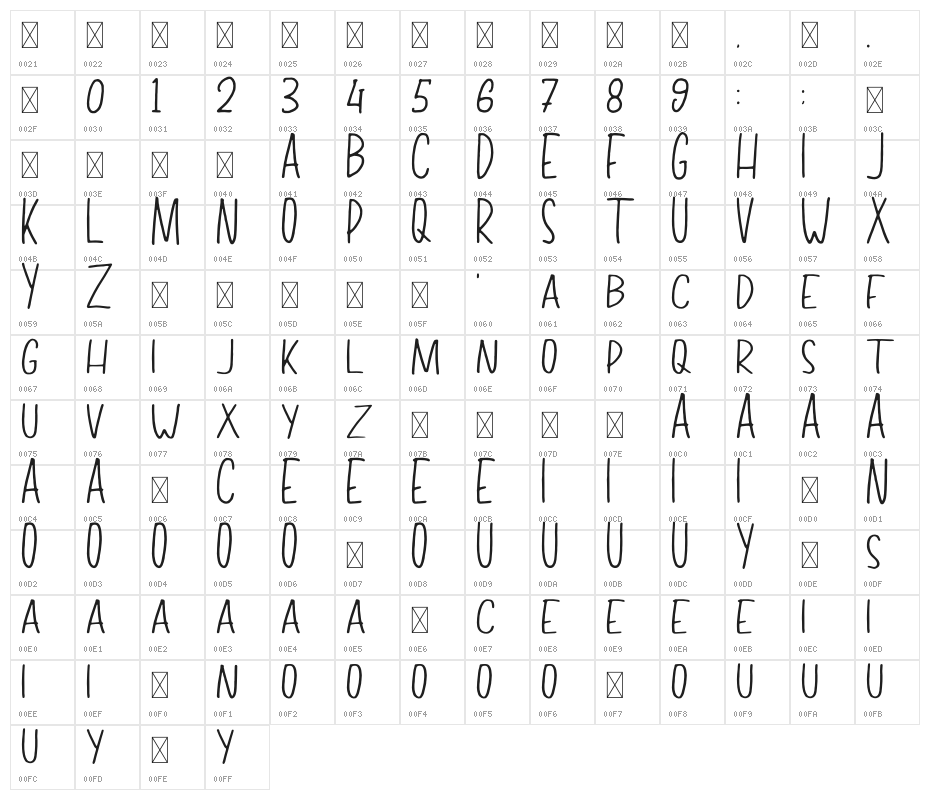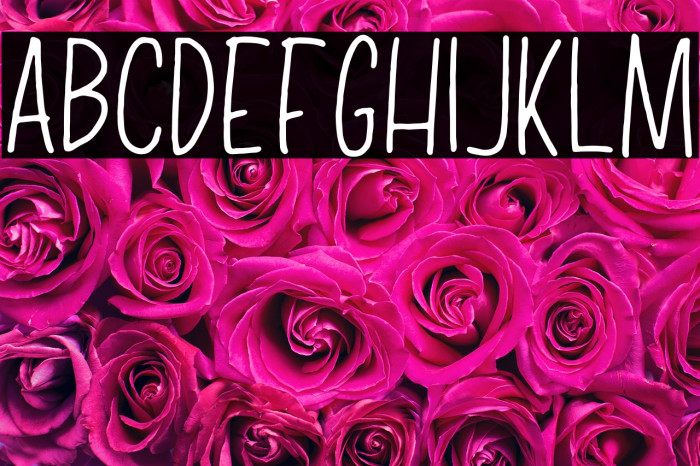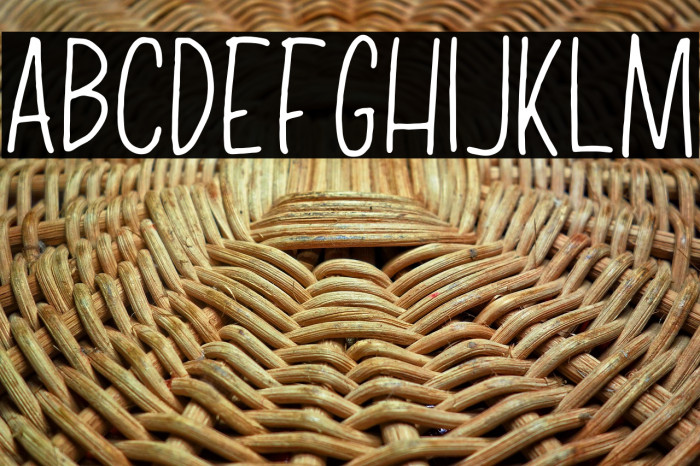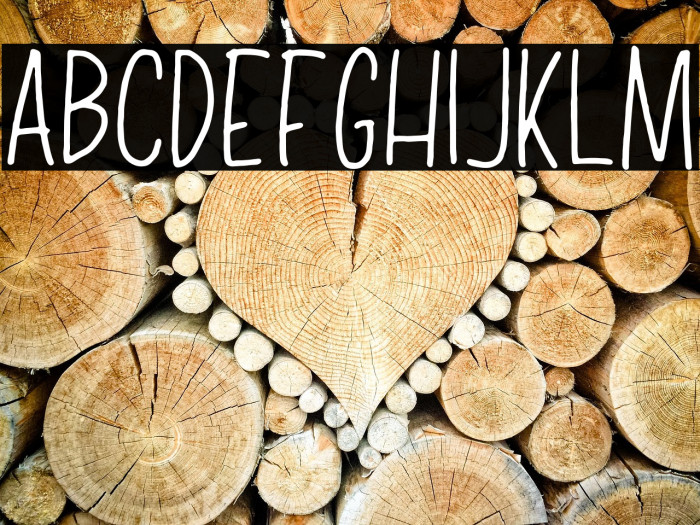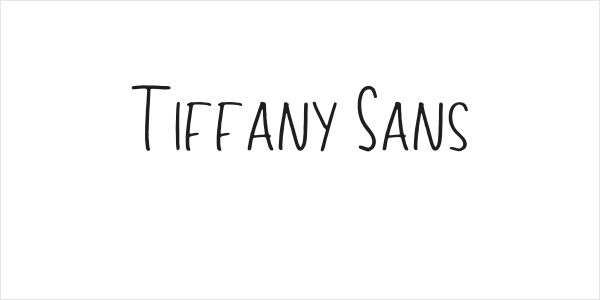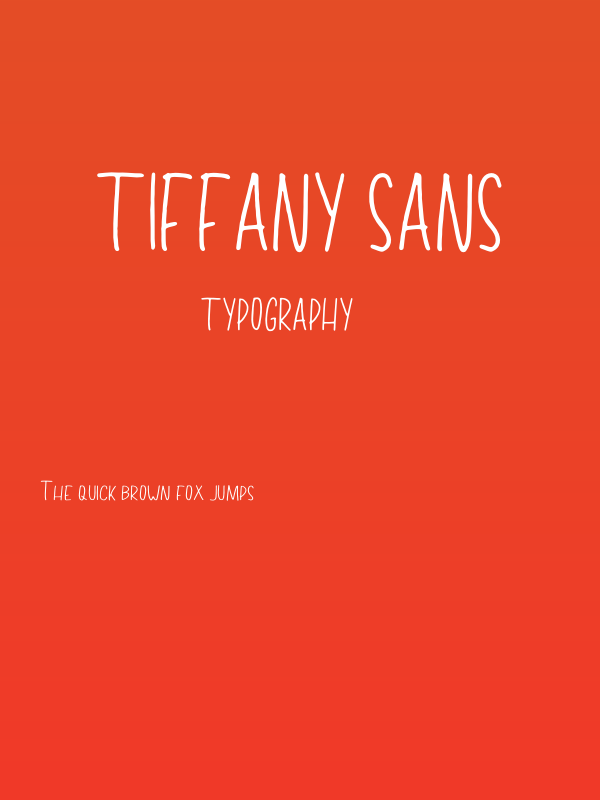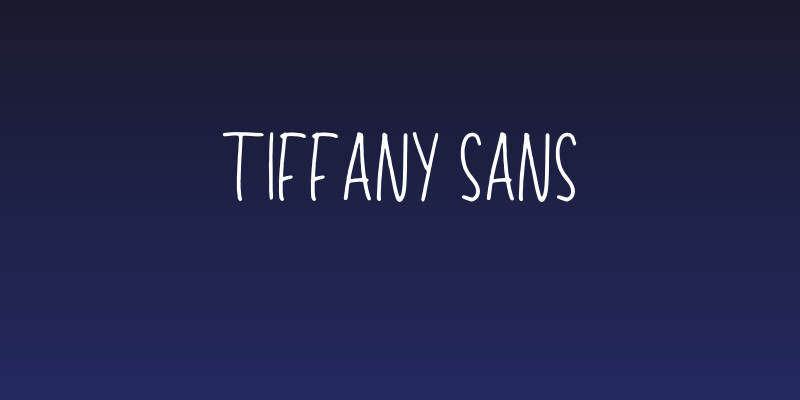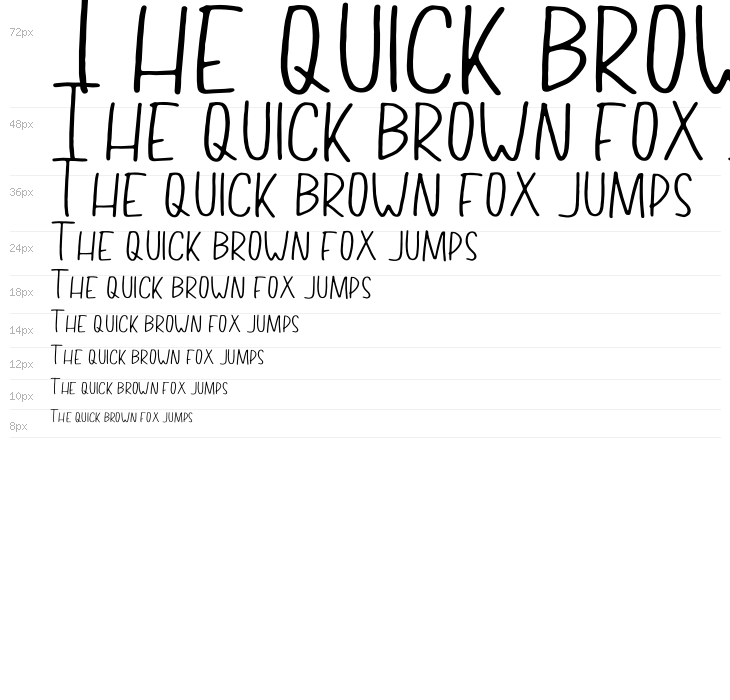
Tiffany Sans Font
Tiffany Sans Description
This font features a playful and casual handwritten style, characterized by its tall and narrow letterforms. The strokes are slightly uneven, giving it a natural and organic feel. The uppercase and lowercase letters maintain a consistent height, enhancing readability while preserving a whimsical charm. The numerals are distinct and easy to distinguish, complementing the overall style. The font's informal nature makes it suitable for projects that require a personal touch or a relaxed atmosphere. Its simplicity and clarity ensure it remains legible across various applications.
| Proposed Projects | Ideal for greeting cards, invitations, personal blogs, and children's book illustrations. |